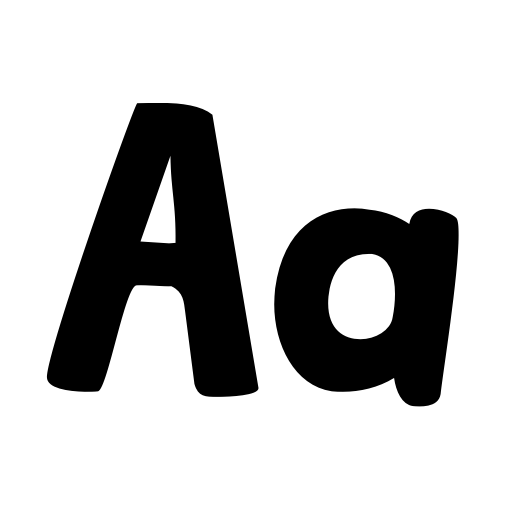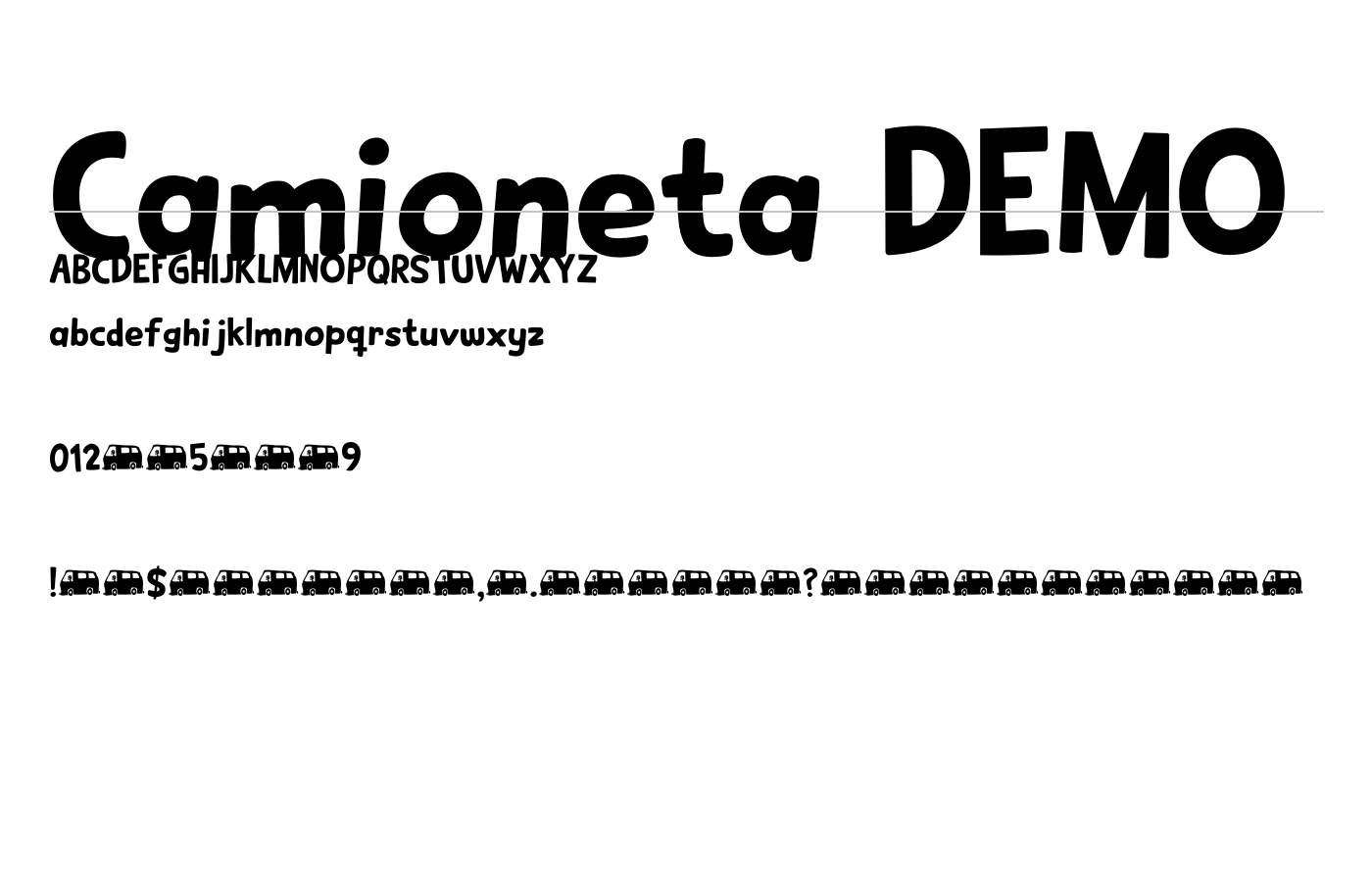
Camioneta DEMO is a playful and bold sans-serif font with rounded edges and a slightly condensed, friendly feel. Its irregular, quirky letterforms and distinctive icons give it a casual and approachable personality, ideal for fun, informal designs such as children’s materials, posters, or creative branding. This font works best where a unique, cheerful style is needed to grab attention and convey lightheartedness.
Camioneta DEMO Font
About Camioneta DEMO Font